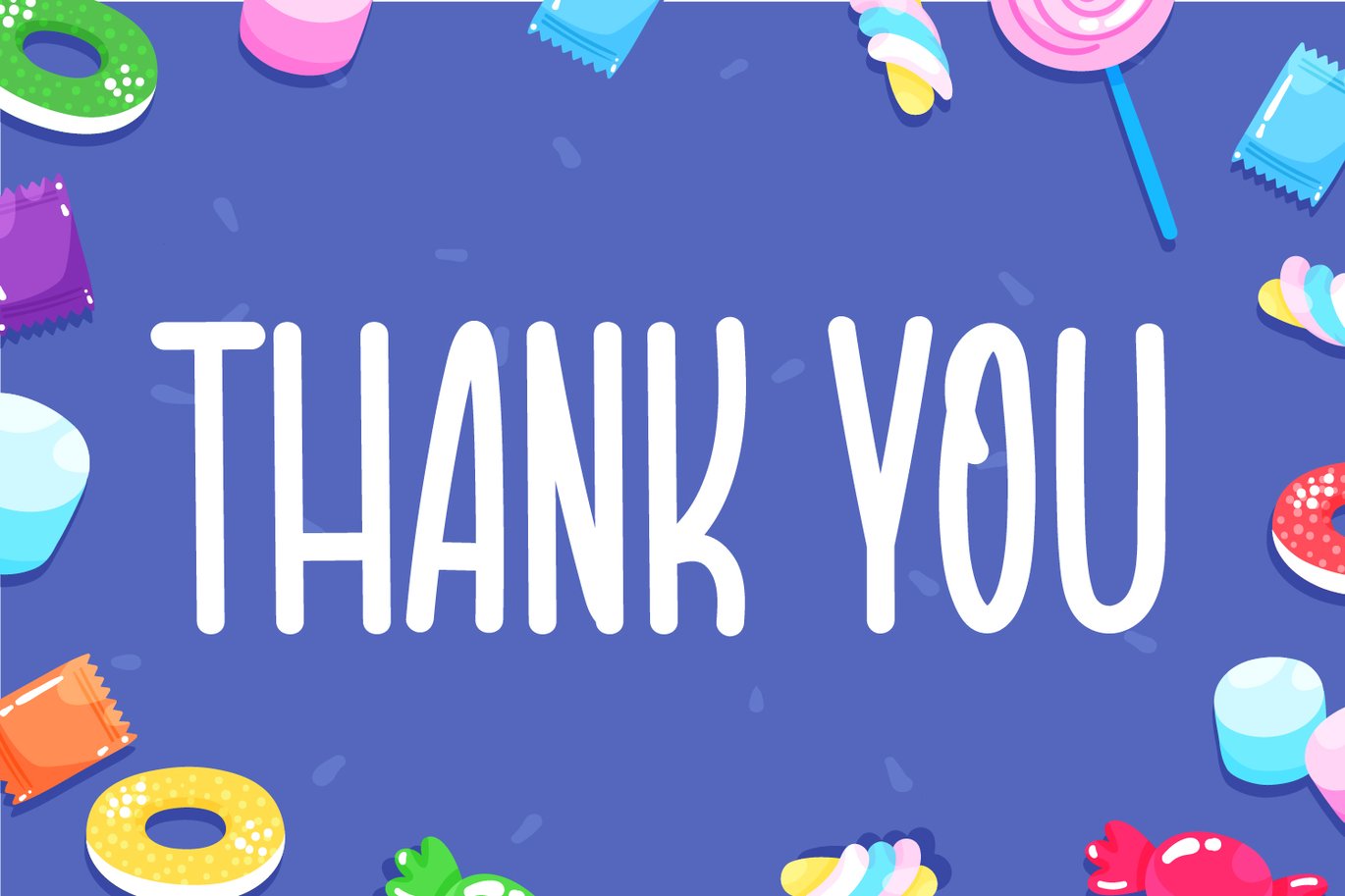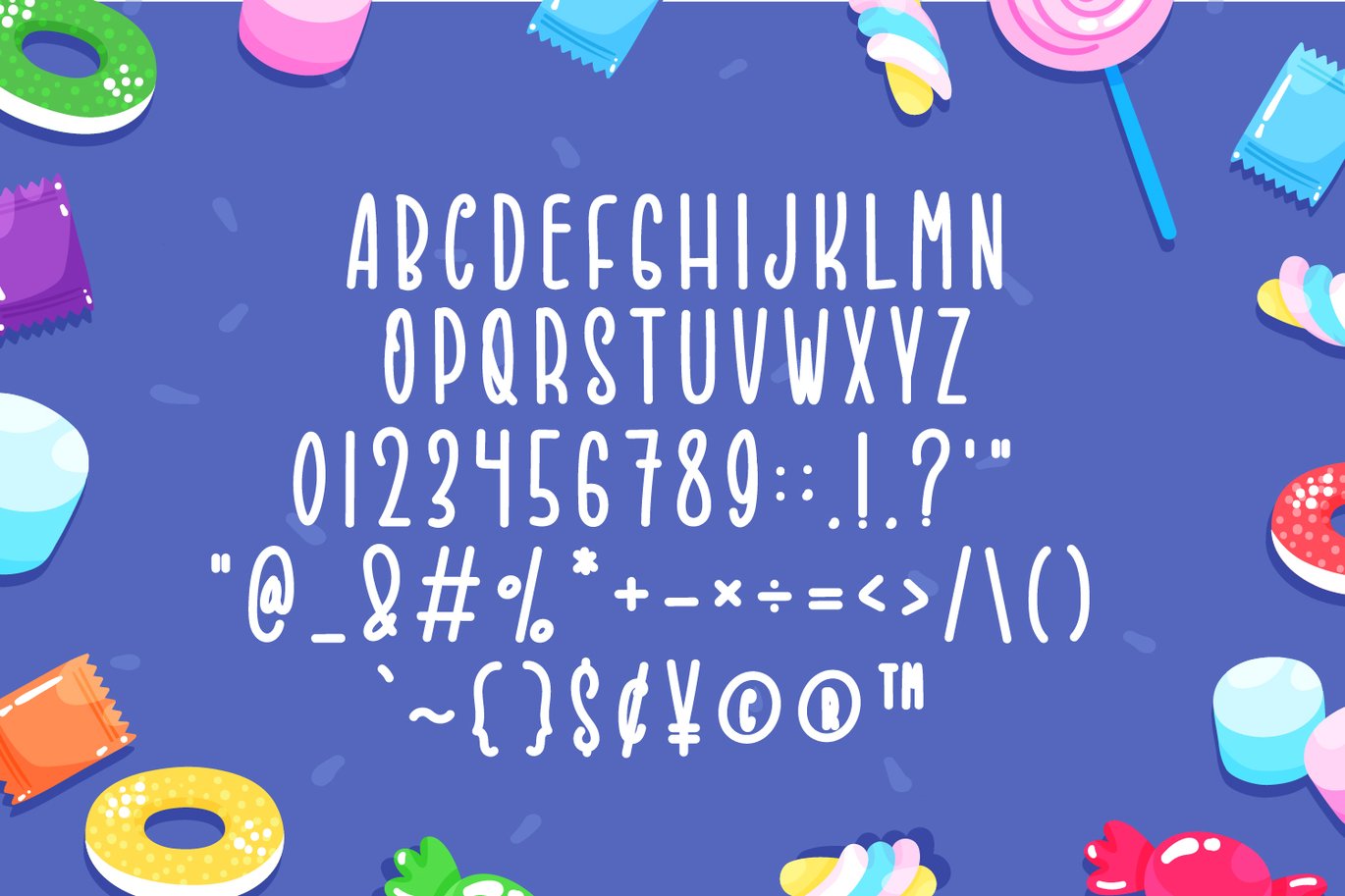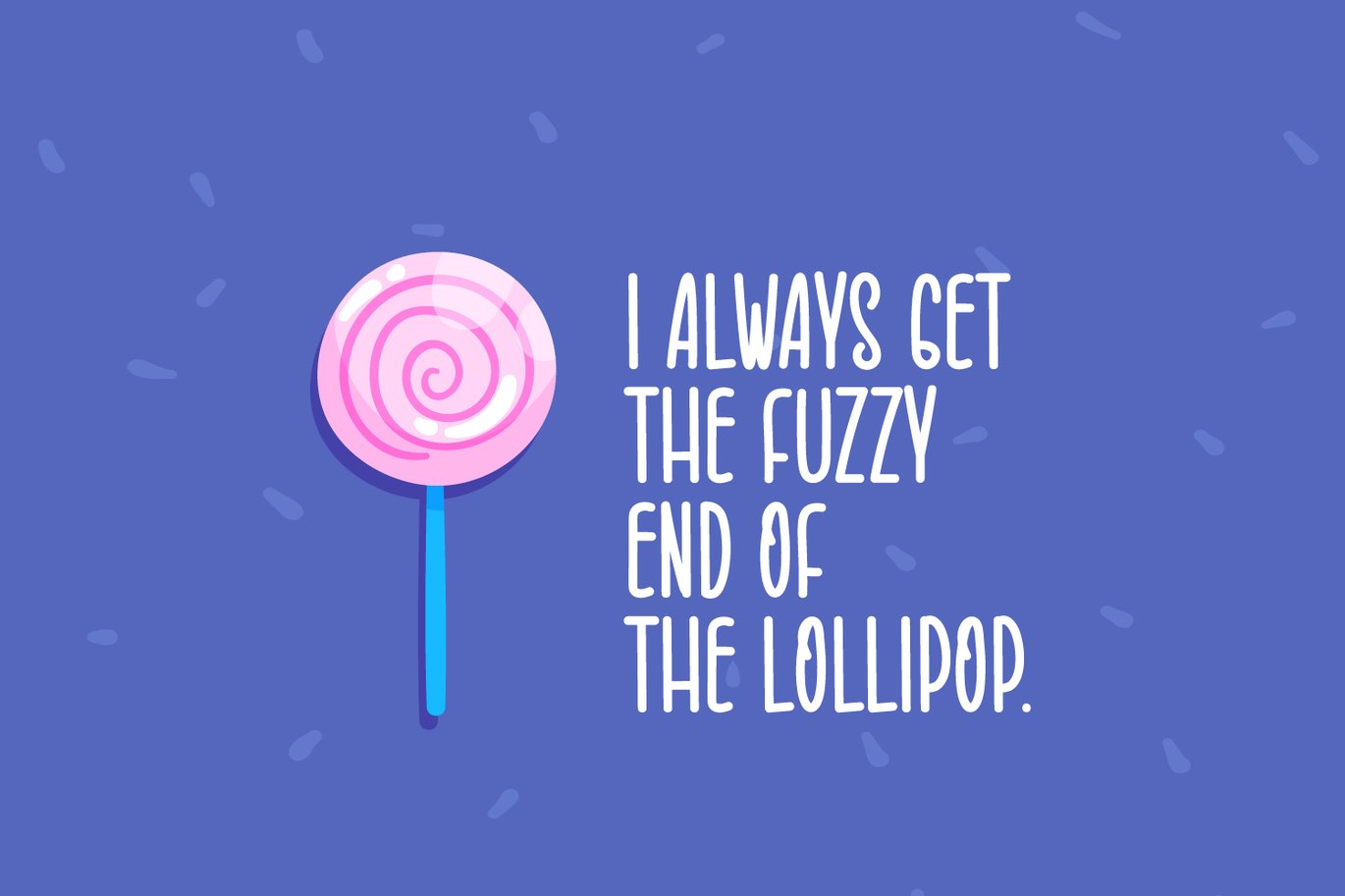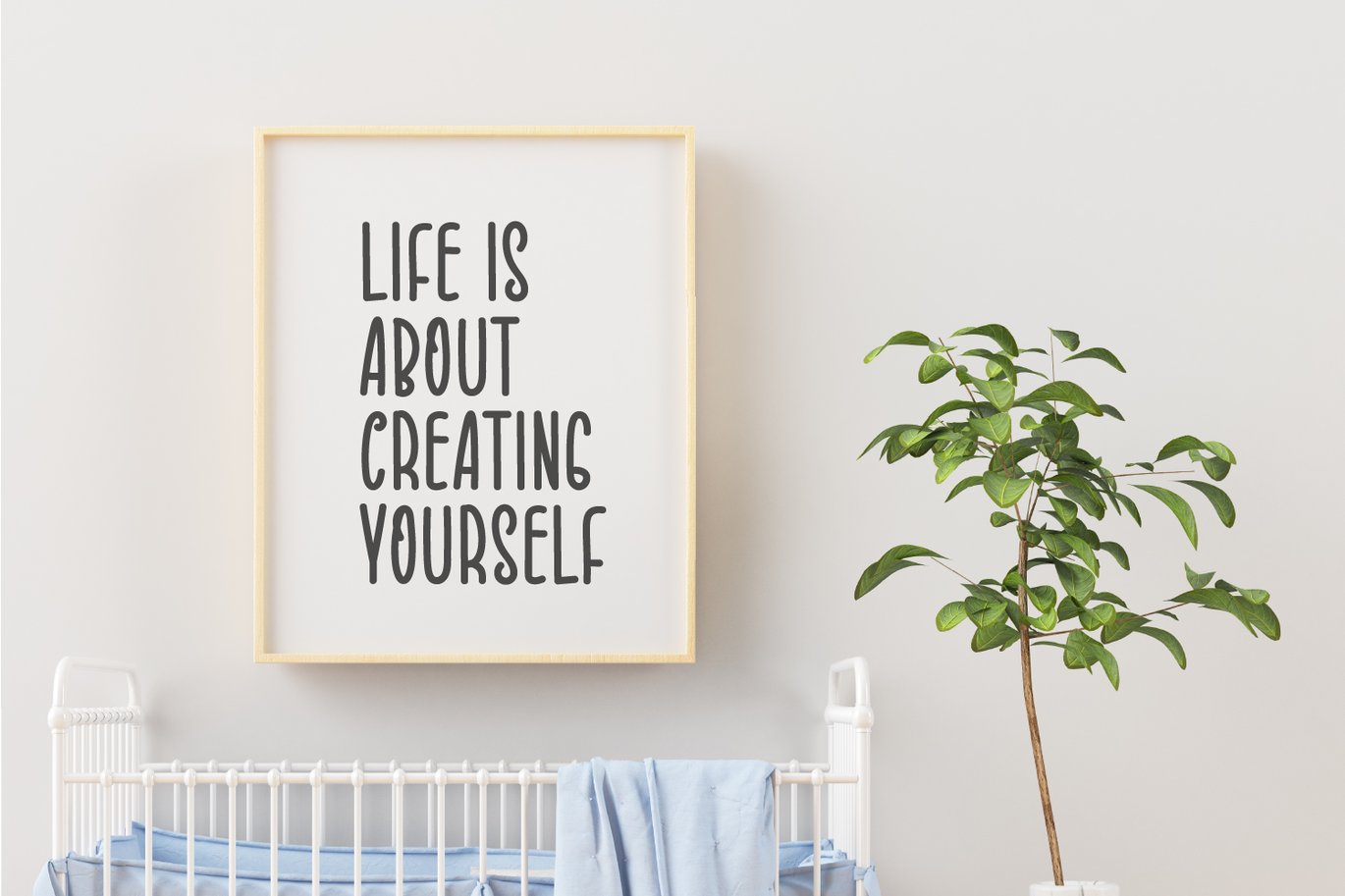
Happy Candy – Cute Display Font
Introducing Happy Candy – Cute Display Font
Happy Candy is a simple and tall display font. Fun, genuine and featuring all round letters, this font will complement each of your design ideas.